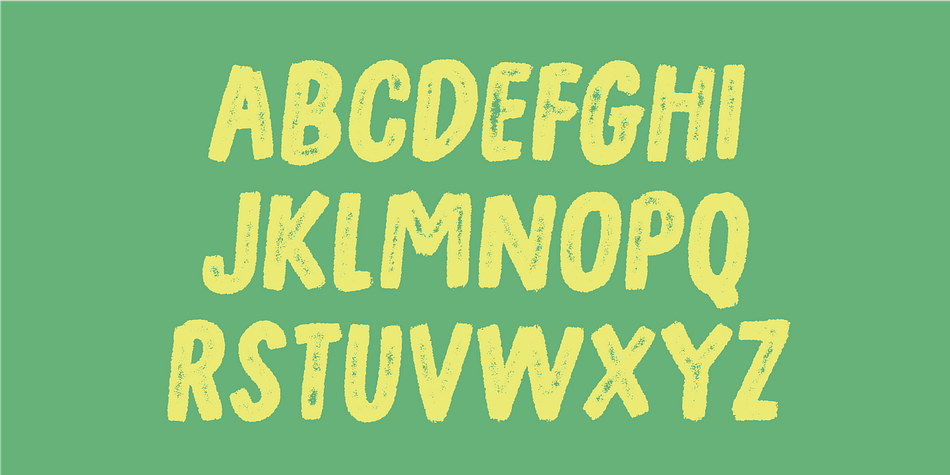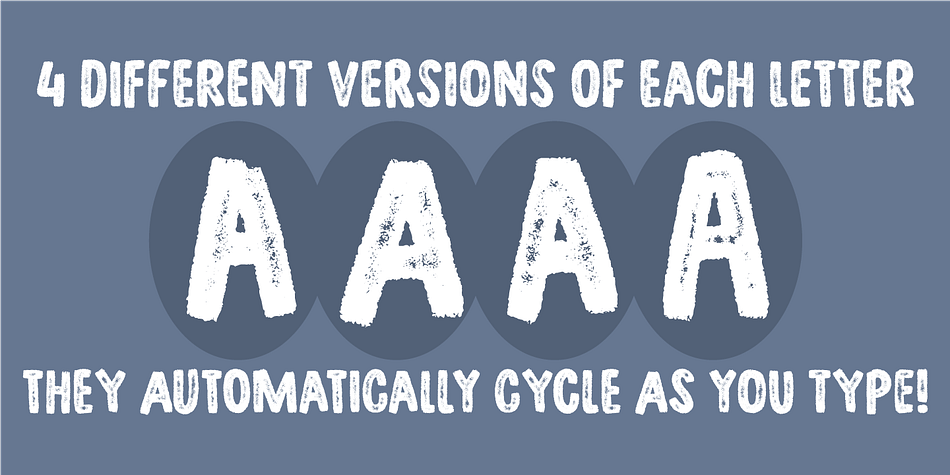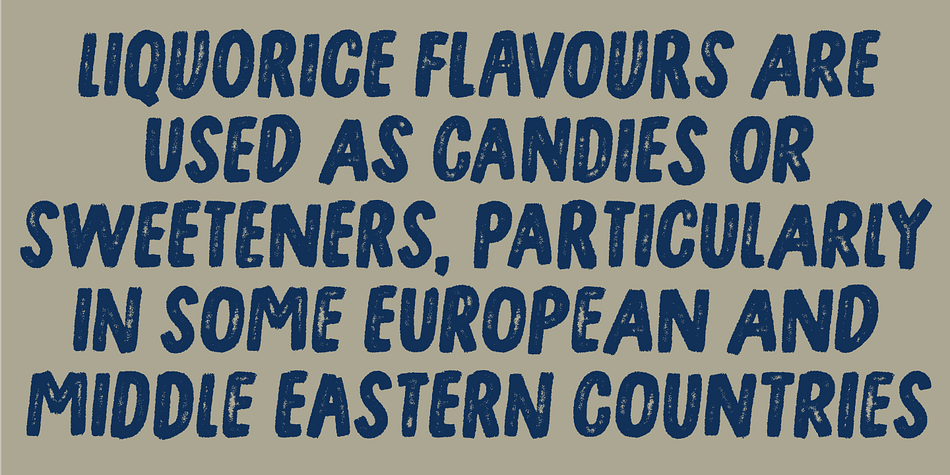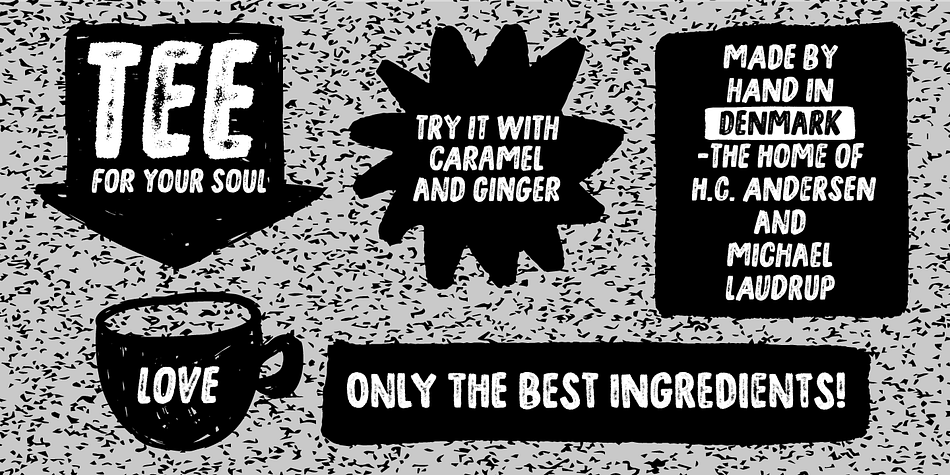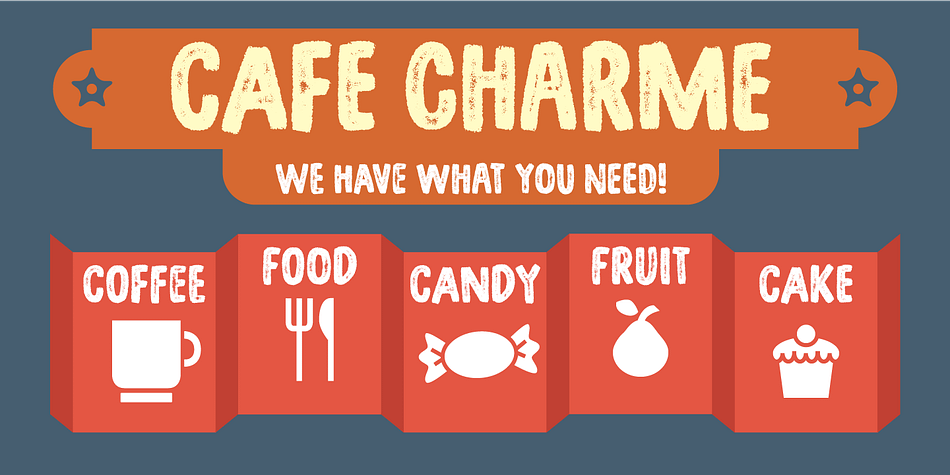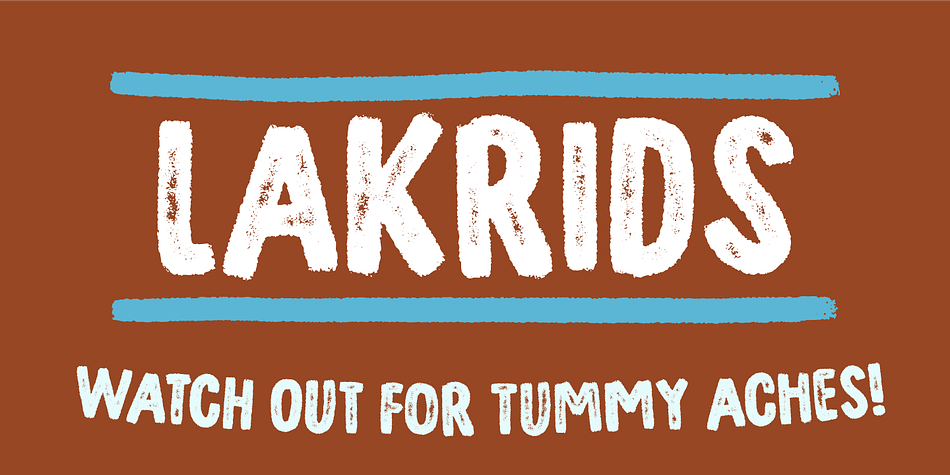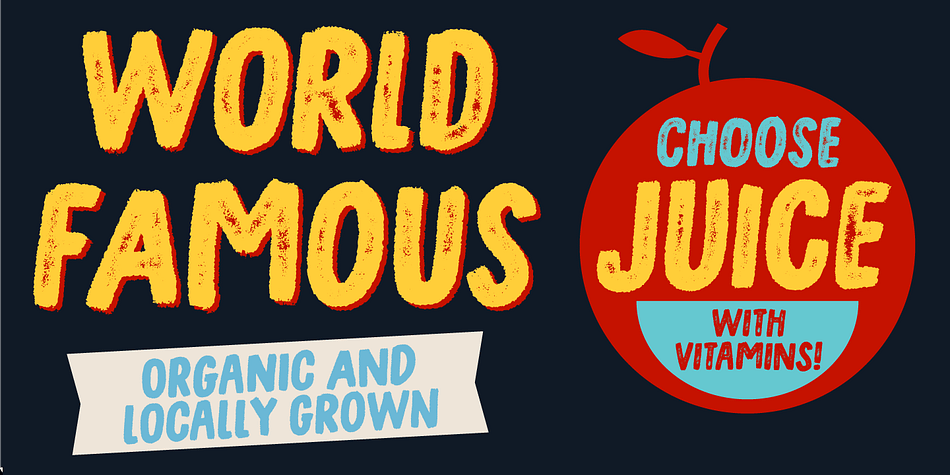
Designed by Jakob Fischer, Lakrids is a hand display font family. This typeface has four styles and was published by Pizzadude.dk.
Lakrids (or liquorice in English) is my favourie sweet ... “sweet” you may ask yourself ... is liquorice considered a sweet? Yes, in Denmark it is, and I love it.
This temperamental font comes in a eroded and a solid version (both with italic versions as well) and has “contextual alternates” which means that the font is programmed to switch between the 4 different versions of each letter AS you type! Pretty clever way to make your text look more random.